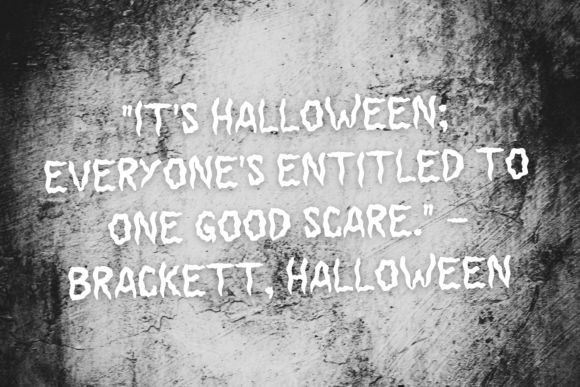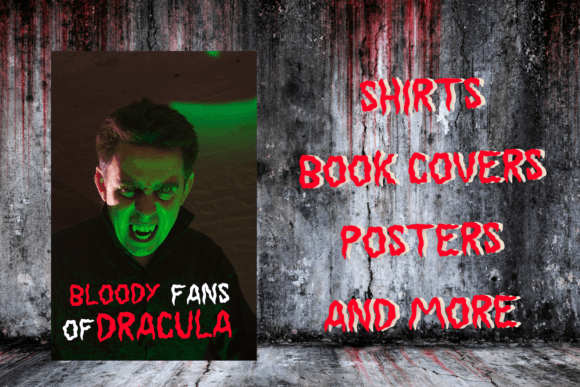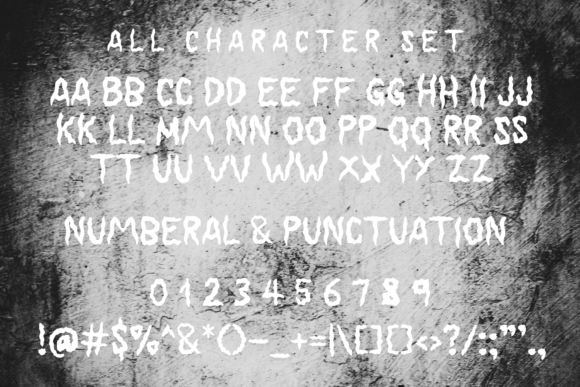
Introduction to Horror Story Font
Horror Story is a cool Halloween decorative or display font.
👤 Author Brown Cupple Fonts
The additional elements of blood dripping and bones-like letters make an ambiance of horror Invitations, postcards, posters, and headings for a Halloween event; this font can be used in every setting .
Key Features of Horror Story Font
Why Choose Horror Story Font?